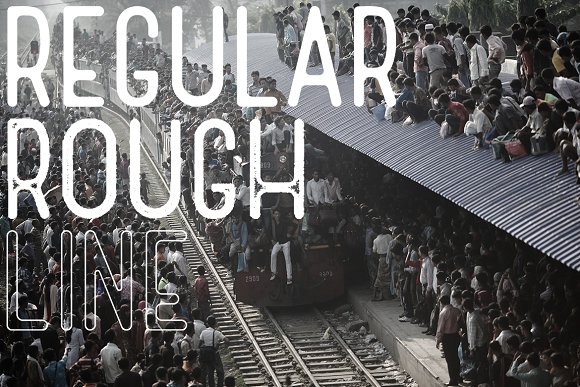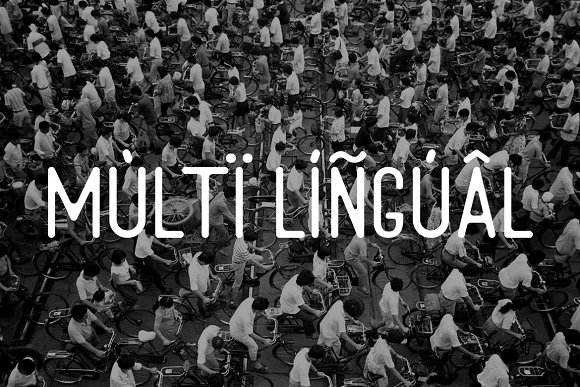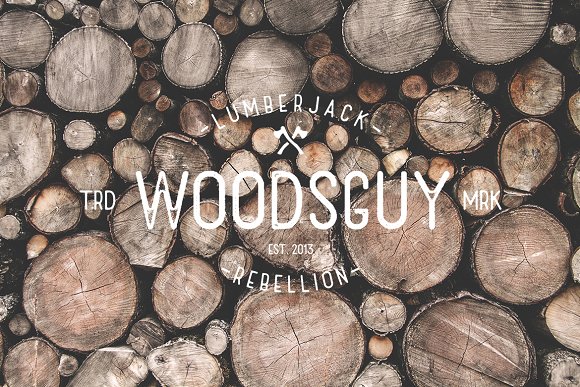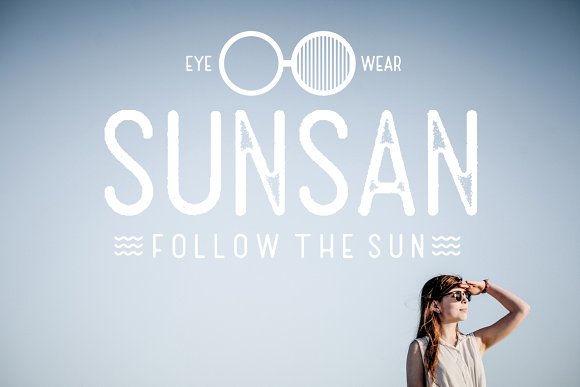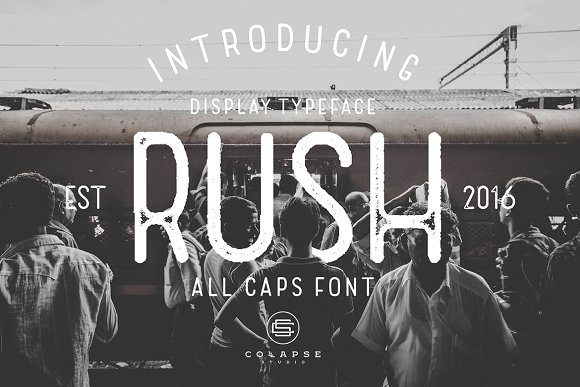
Rush Display Font
Very happy to announce my first typeface, this font it called Rush. Rush is a simple vintage sans serif font, with 3 style font (regular, rough, outline) and multiple language support. Perfect for headlines, logo design, posters, greeting card, letterhead, t-shirt and many more. Hopefully enjoy using Rush, don’t hesitate to drop me a message if you have any questions or to give a feedback.